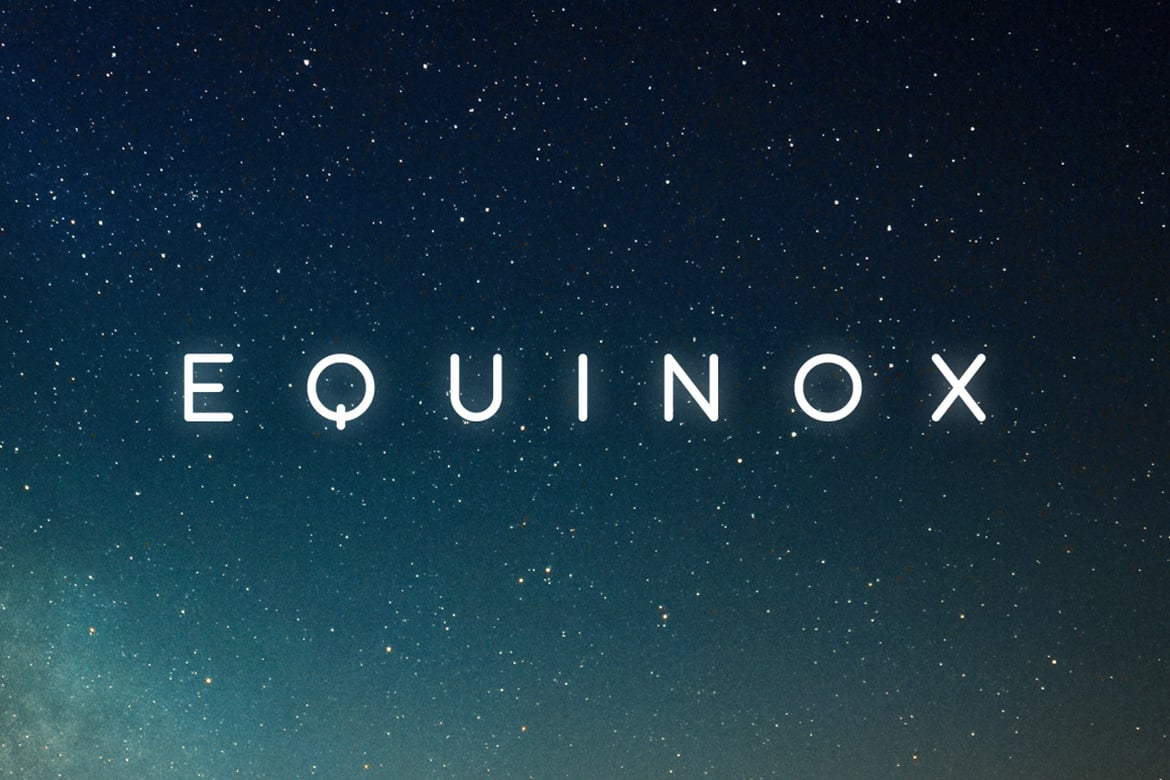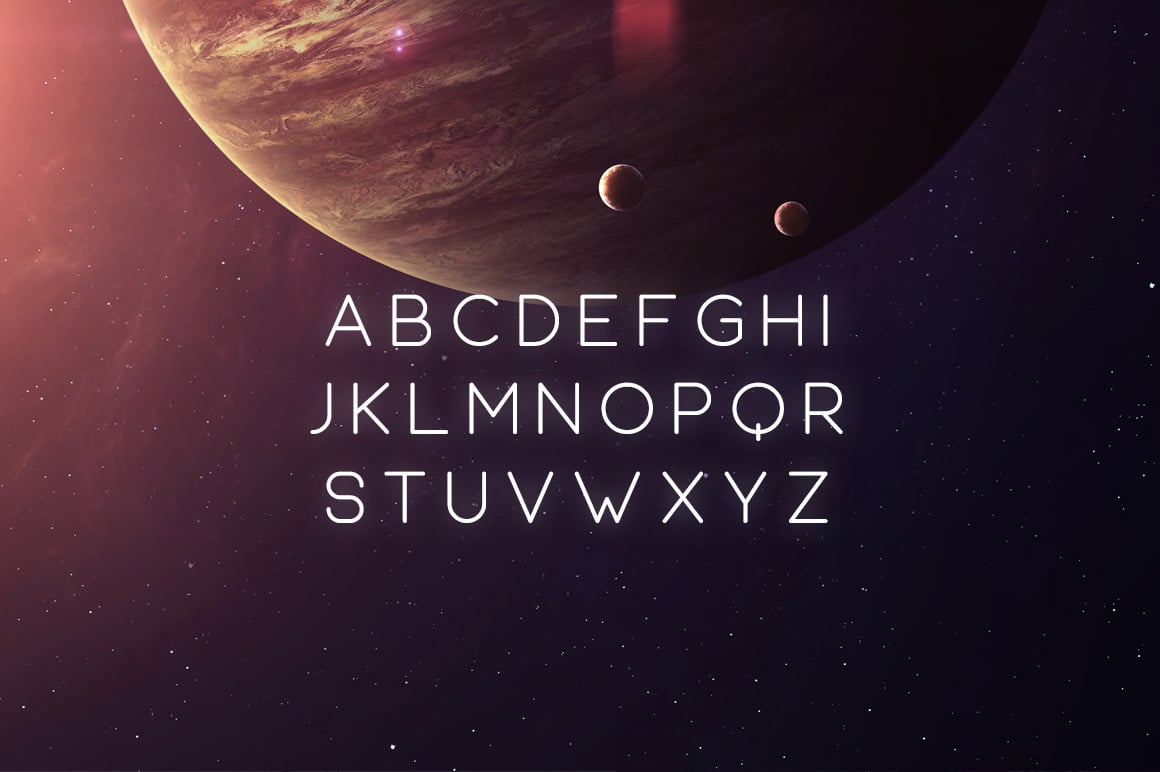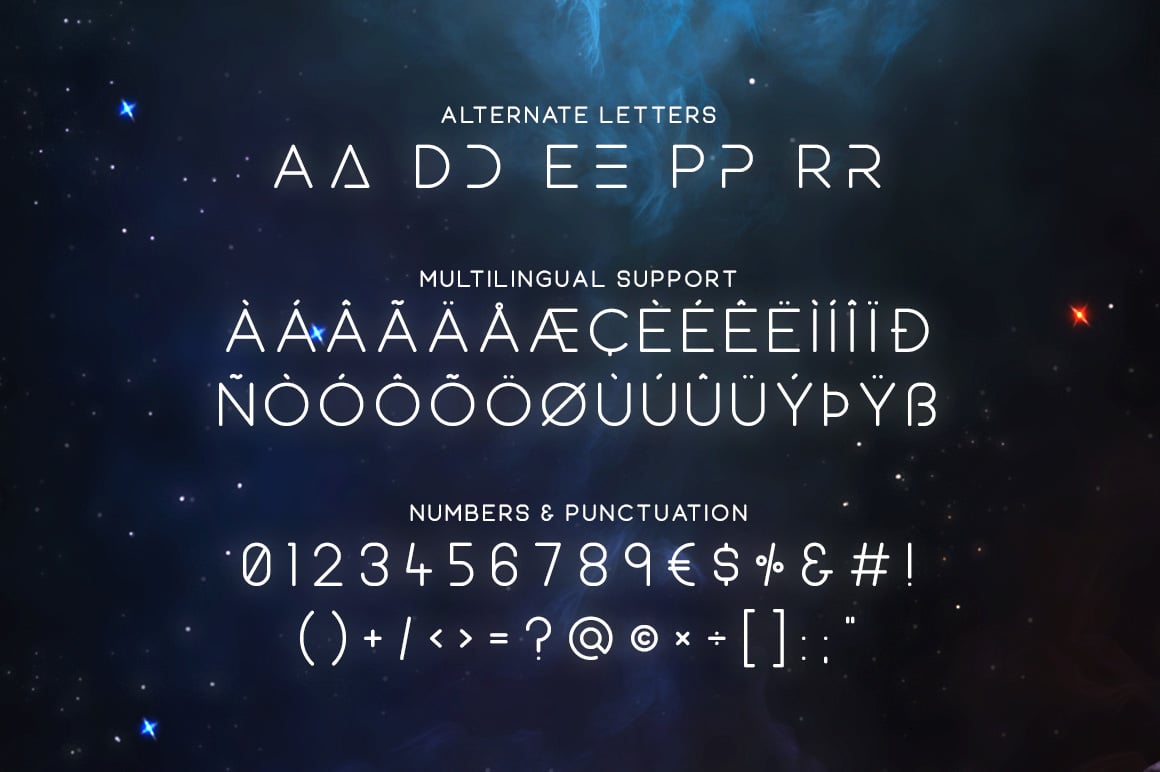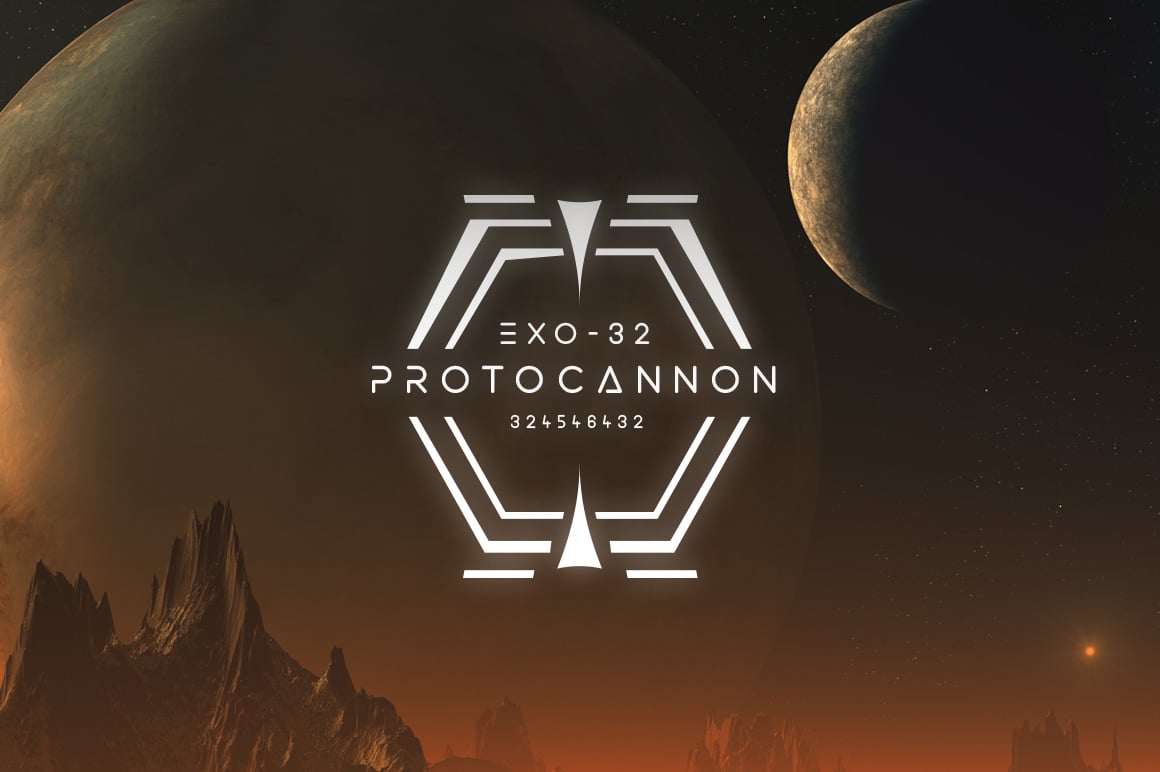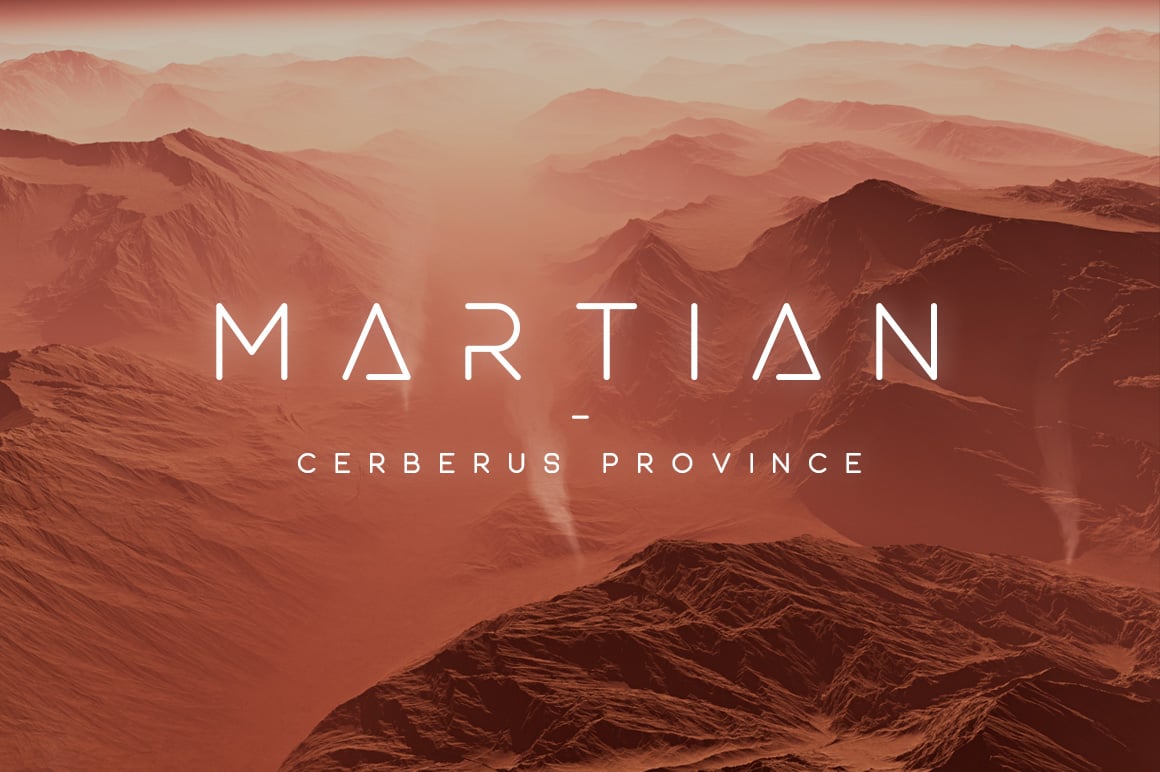
Equinox Typeface
Equinox is a modern, minimal and clean font family with uppercase multilingual letters, numbers, punctuation and alternate letters. It’s not as futuristic as my other sci-fi fonts but it’s much more versatile and can be used for non sci-fi purposes as well.
Equinox comes in regular and bold weights. Toggle caps lock to use the alternate letters.